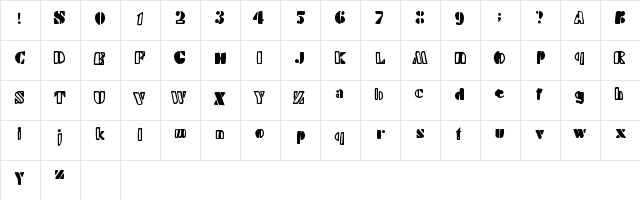
HandyStencil Regular
| Foundry | Xerographer Fonts |
| Designer | Max Infeld |
Design Context for HandyStencil Typeface
HandyStencil borrows the utilitarian aesthetic of stencil lettering, with its characteristic cutaways and no-frills construction lending an industrial edge.
Ideal for industrial branding, streetwear, military-adjacent aesthetics, and urban signage projects.
Pro Tip: Pair HandyStencil with raw, utilitarian design elements — exposed concrete textures, flat colour, and minimal ornamentation suit it well.